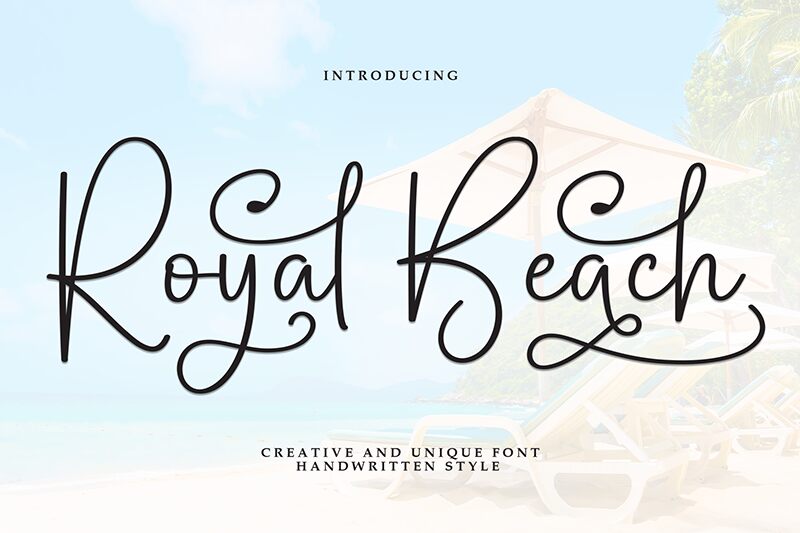
Royal Beach font by Scratchones is an expressive free font with a casual style. The gentle strokes that form its letters are a reflection of many innate traits ranging from the calmness of the beach to the gentle waves that decorate the sea. This handwritten font allows for an effortless way of transferring unspoken emotions to its readers slowly and enjoyably.
Royal Beach is the ideal choice of typography for delicate items, and no home décor piece can be complete without a glamorous invitation for a warm meal with loved ones. Because even the smallest works should not lack sophistication, Royal Beach is an amazing addition to logos, branding and packaging designs, apparel items, greeting cards, and party invitations for all occasions.